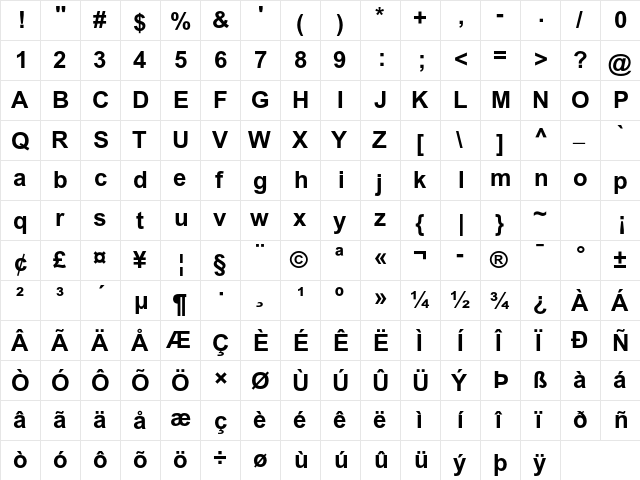
Arial MT Std Bold
Design Context for Arial MT Std Typeface
Arial MT Std is a composed and adaptable typeface that performs quietly and consistently across a wide range of design contexts. The heavy weight commands attention and anchors typographic hierarchies.
Pro Tip: Use Arial MT Std in both headline and body roles to test its range before committing to a single application.